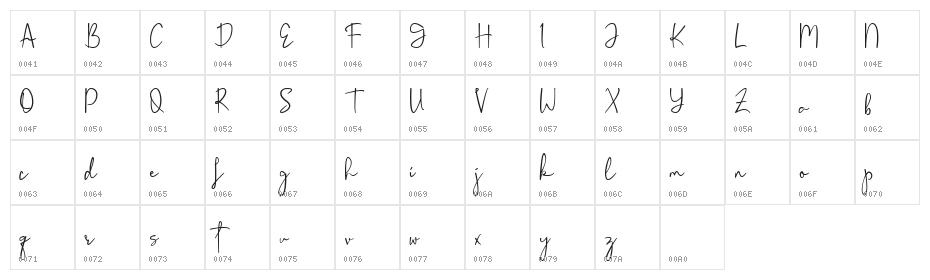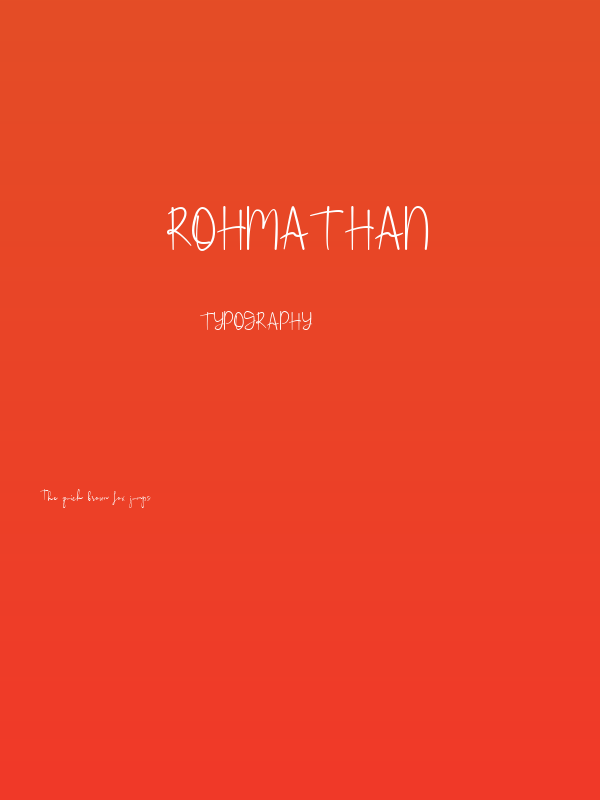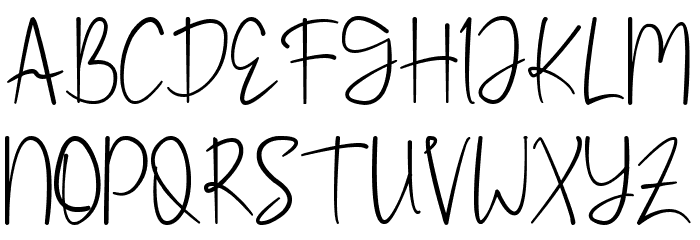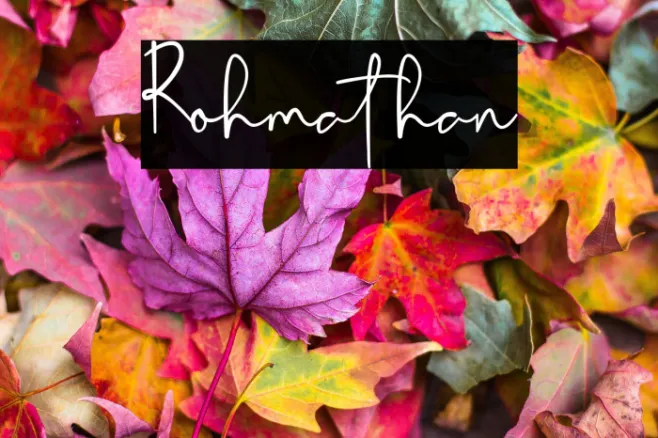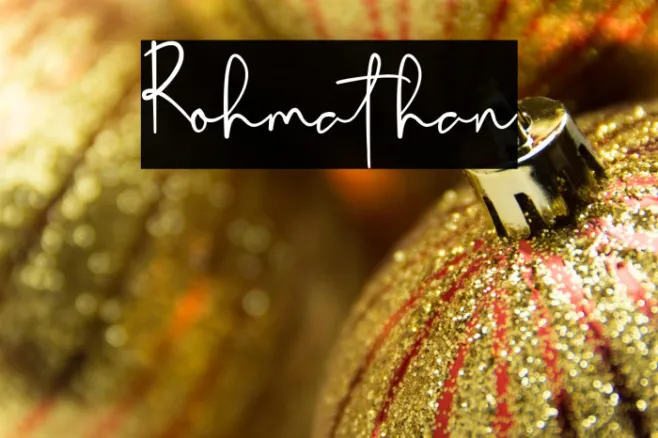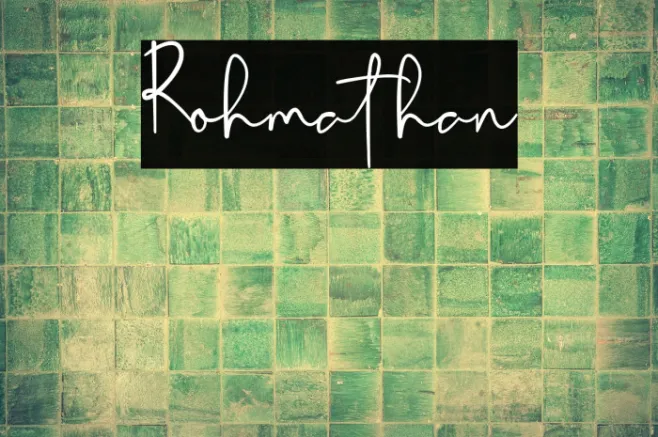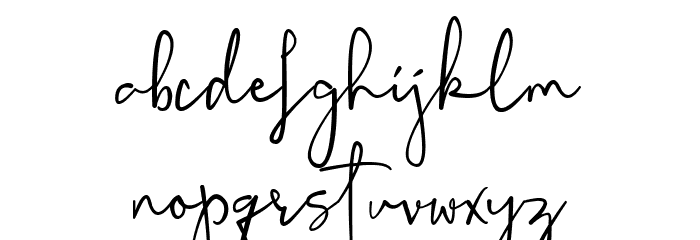
Rohmathan Font
Rohmathan Description
This font features a playful and whimsical handwritten style, characterized by its flowing, cursive-like strokes and varying line thickness. The uppercase letters are bold and expressive, with unique flourishes that add a touch of elegance and creativity. The lowercase letters maintain a consistent style, offering a smooth and connected appearance that enhances readability while retaining a casual, artistic flair. The numerals and special characters are designed to complement the overall aesthetic, ensuring a cohesive look across all text elements. This font's distinctive personality makes it ideal for projects that require a personal touch or a sense of individuality.
| Proposed Projects | Ideal for greeting cards, invitations, personal branding, and creative projects. |